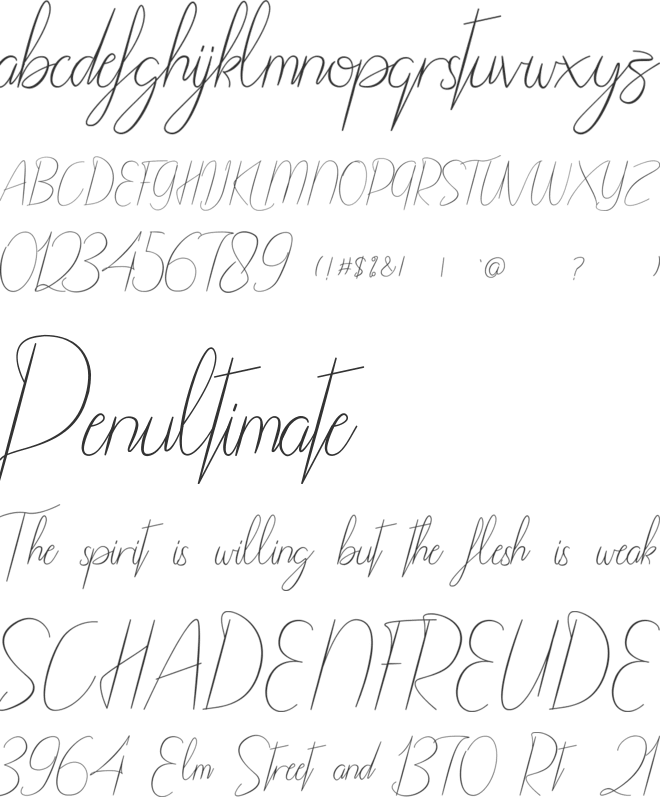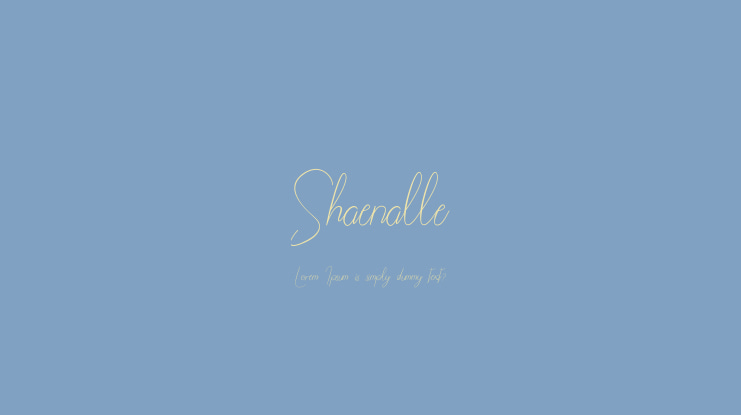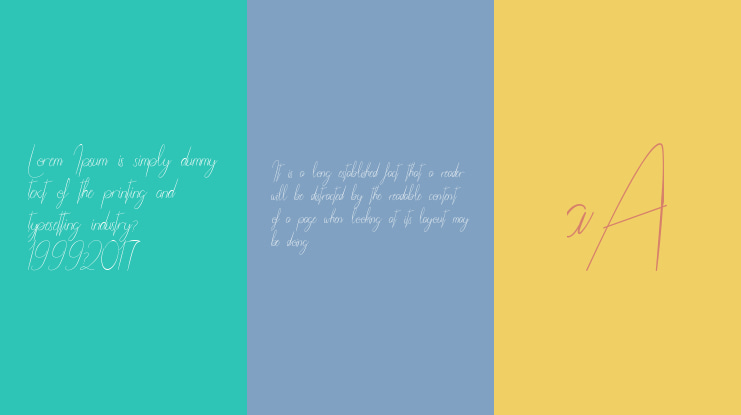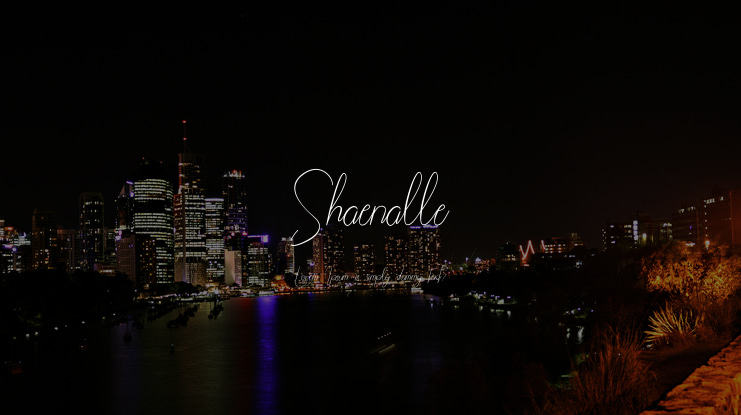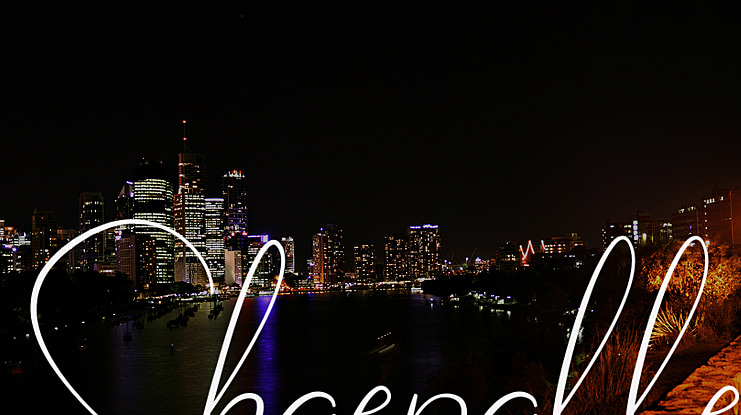
Shaenalle Font
Muhammad Wahyudin
Shaenalle Font is signature script, with sweet touches and beautiful curves on each letter. This font is great for your next creative project.
Shaenalle Font is perfect for fashion magazines, product watermarks, wedding designs, social media posts, advertisements, product designs, label product, logo product cosmetics, logo product parfume, photography, invitation, and any projects that need signature taste.